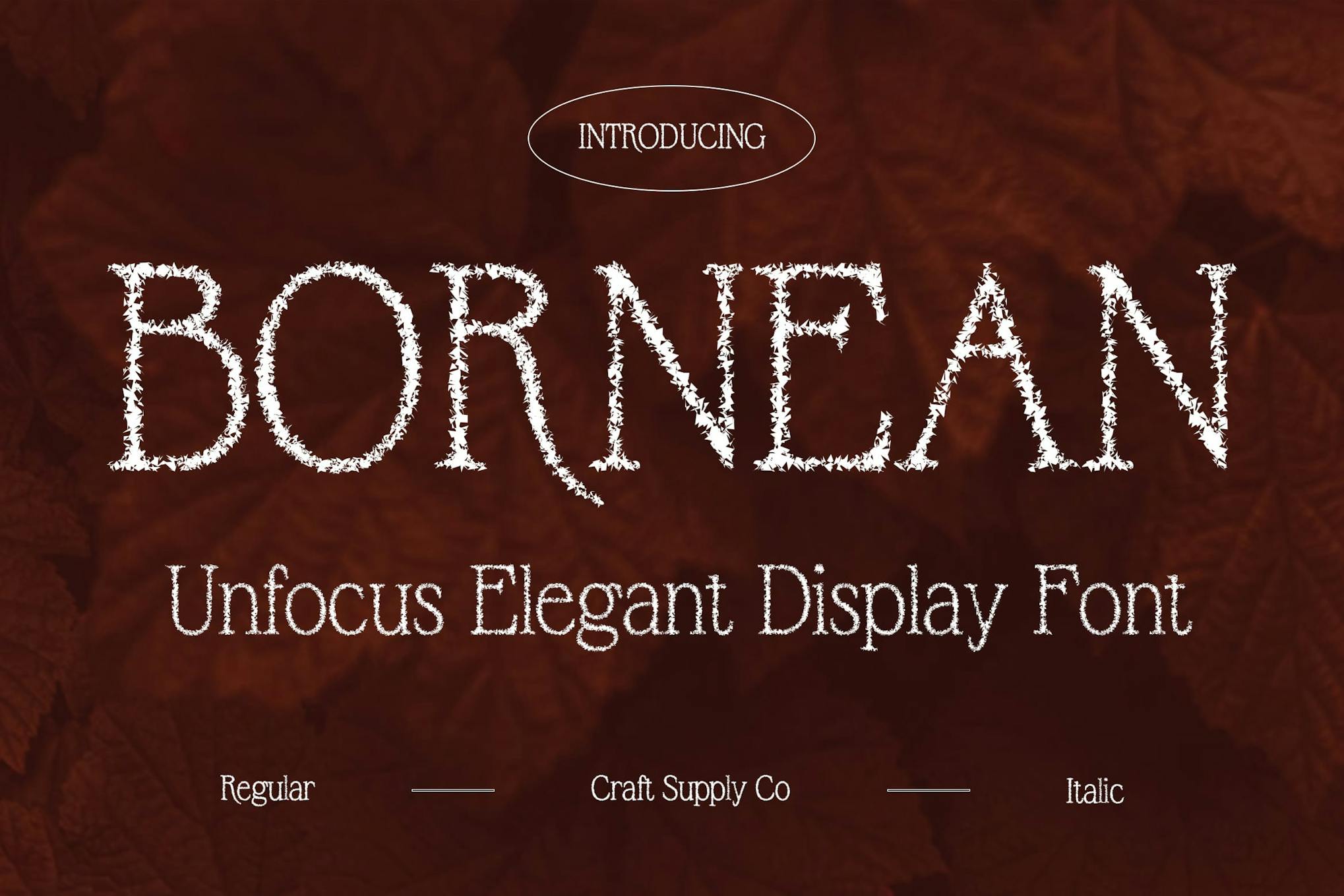
Bornean Unfocus Font
Bornean Unfocus Font emerges through tropical rainforest conservation campaigns, indigenous cultural preservation materials, Southeast Asian tourism branding, ecological research publications, orangutan sanctuary signage, biodiversity museum exhibitions, tropical adventure expedition graphics, sustainable eco-tourism promotions, rainforest protection advocacy, indigenous art gallery identities, tropical botanical gardens, and environmental awareness marketing where Bornean mystique and atmospheric jungle unfocus create immersive tropical experiences.
This mystical typeface generates excitement through its perfect embodiment of Borneo's ancient rainforest wisdom and indigenous cultural heritage that creates typography channeling the mysterious depths of Southeast Asian jungle environments. Bornean Unfocus Font captures the essence of tropical mysticism with its softly misted letterforms that suggest the humid atmosphere of primary rainforests and the ancient wisdom preserved in indigenous communities throughout Borneo's vast wilderness. The font's organic design approach incorporates elements that evoke misty jungle mornings, traditional tribal artistry, and the profound ecological connections that define authentic Bornean culture and rainforest spirituality.
The Bornean Unfocus Font family encompasses multiple tropical variations including Regular, Light, Medium, Bold, and Mystical versions, each maintaining the font's characteristic Bornean authenticity while offering different levels of jungle atmospheric impact. The collection features rainforest-inspired blur effects, tribal artistic treatments, and tropical textures that enhance its indigenous aesthetic. Additional elements include Dayak tribal ornaments, rainforest symbols, jungle decorative borders, and mystical flourishes that reinforce the font's connection to authentic Bornean culture and Southeast Asian tropical environments.
Environmental organizations and Southeast Asian cultural institutions consistently select Bornean Unfocus Font Free Download for projects requiring typography that communicates indigenous wisdom and tropical rainforest authenticity. This remarkable typeface excels in applications where establishing ecological credibility and conveying respect for indigenous cultures are essential for conservation and cultural preservation success. The font's Bornean qualities make it particularly effective for environmental NGOs, cultural preservation societies, and eco-tourism companies targeting audiences who appreciate indigenous wisdom and tropical biodiversity conservation.
Whether you're designing rainforest conservation campaigns, creating indigenous cultural exhibitions, developing eco-tourism materials, or crafting environmental awareness communications, Bornean Unfocus Font delivers unmatched tropical authenticity. Its ability to convey indigenous wisdom, rainforest mystique, and ecological awareness makes it invaluable for conservation advocates seeking typography that genuinely honors Bornean cultural heritage and tropical environmental protection. The font's mystical presence ensures your designs will communicate the ancient wisdom and ecological reverence that define exceptional Southeast Asian communications and indigenous cultural experiences.